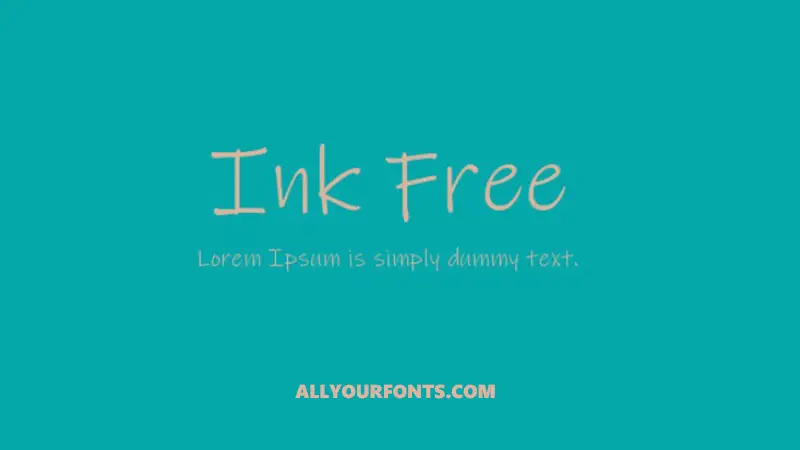
Ink Free Font is a sweet and handwritten typeface. Mr. Steve Matteson took the charge for designing and releasing it for the first time in the typography market.
Now it becomes a delightful and friendly typeface according to the type designers. Along with slim and unique appearance, it proves itself as a top-notch coolest typeface for various stylish purposes.
The Designers had worked on it took huge care for delivering the best layout to each letter including. In this way, Have a look at the font lettering images to understanding it better.
Ink Free Font Family
This Ink Free font has available only in regular style along with Truetype features. Furthermore, this mind-blowing font has support 17 international languages including Italian, Danish, and Dutch.
It is an innovative, refreshing sexist typeface that is metrically compatible with the modern age. Therefore, It works especially well for printing and display purposes.
For example, you can create signatures, book cover, movie posters, special letters, fashion magazines, cosmetic printing, as well as special events cards like invitation and birthday.